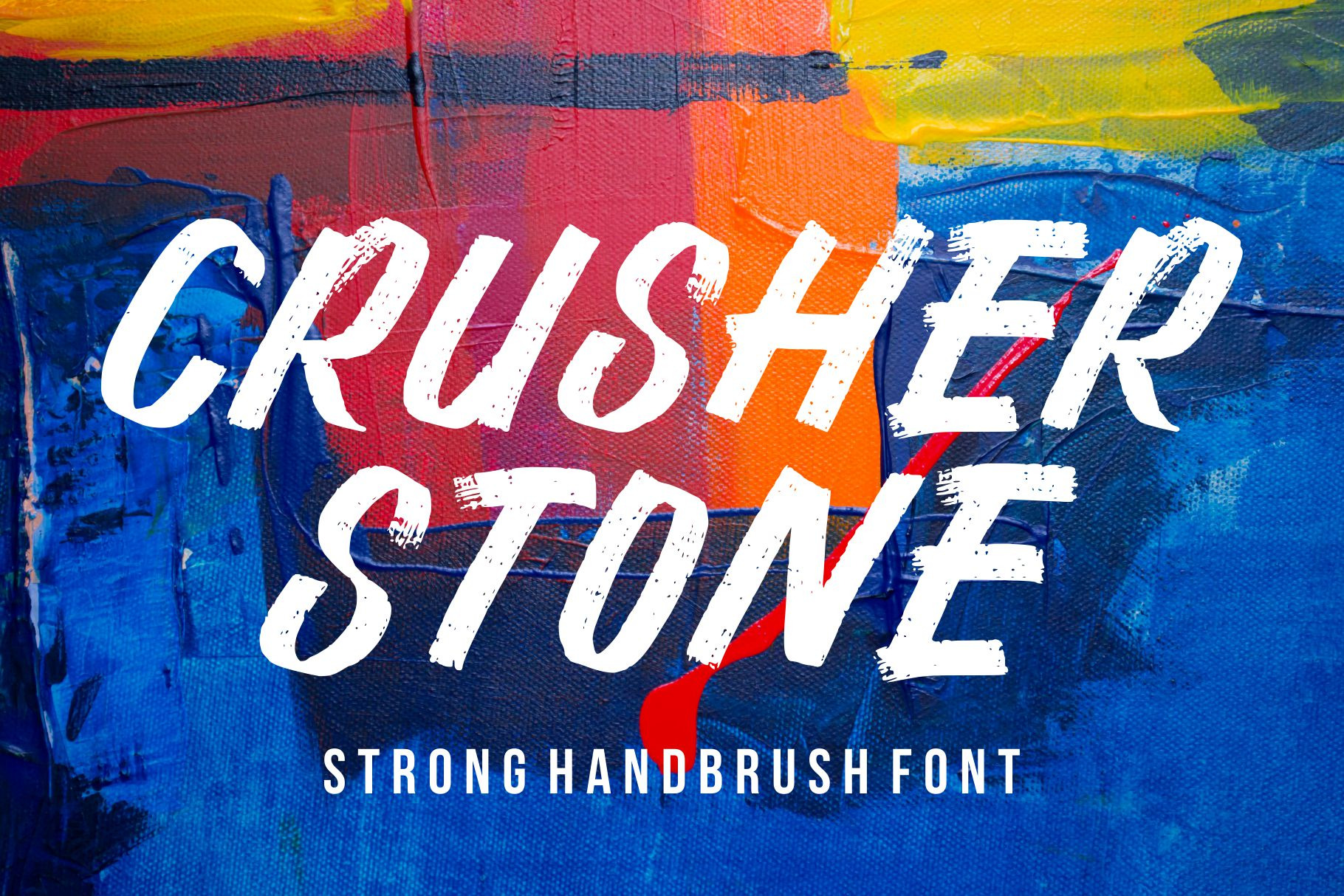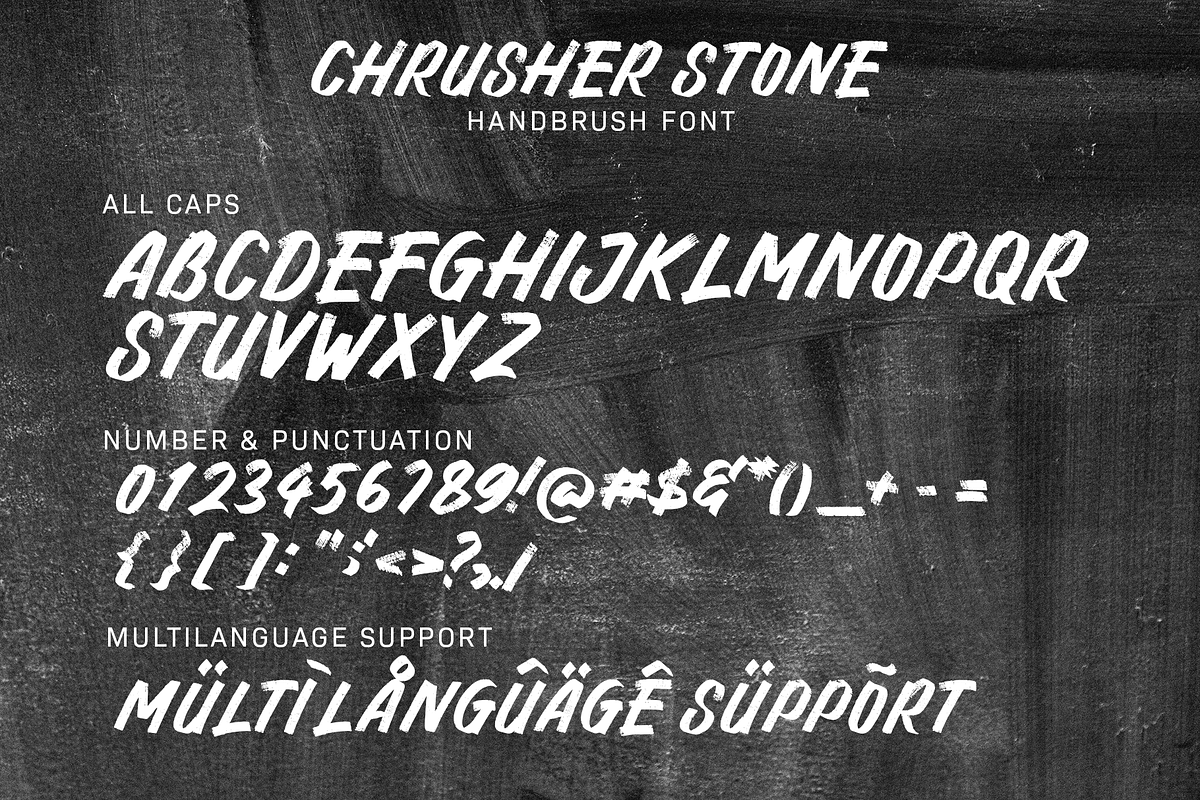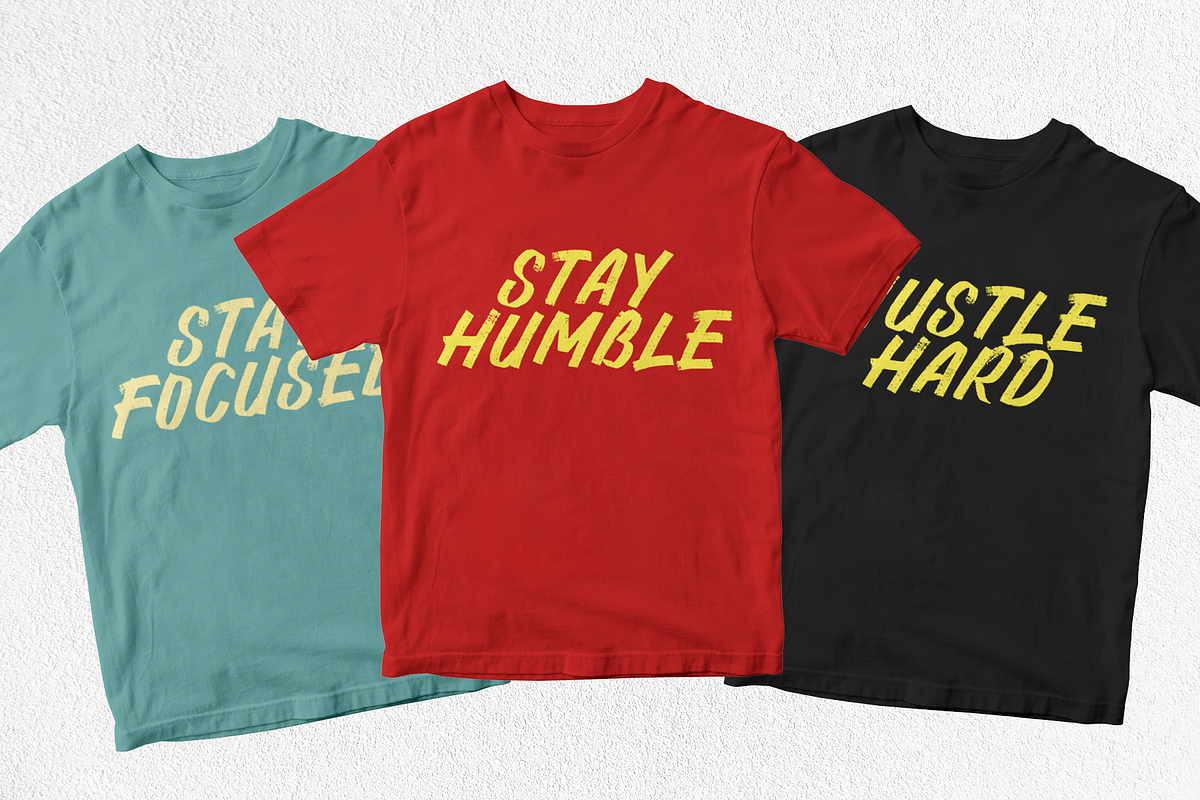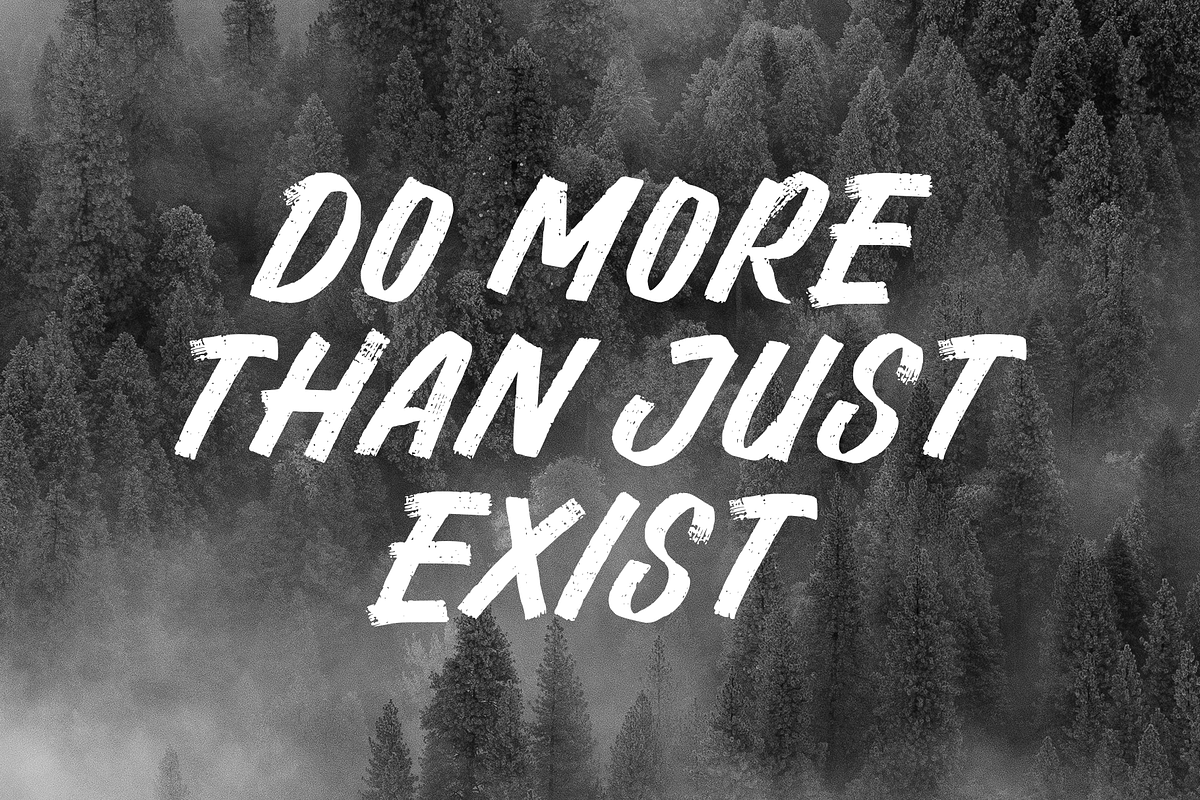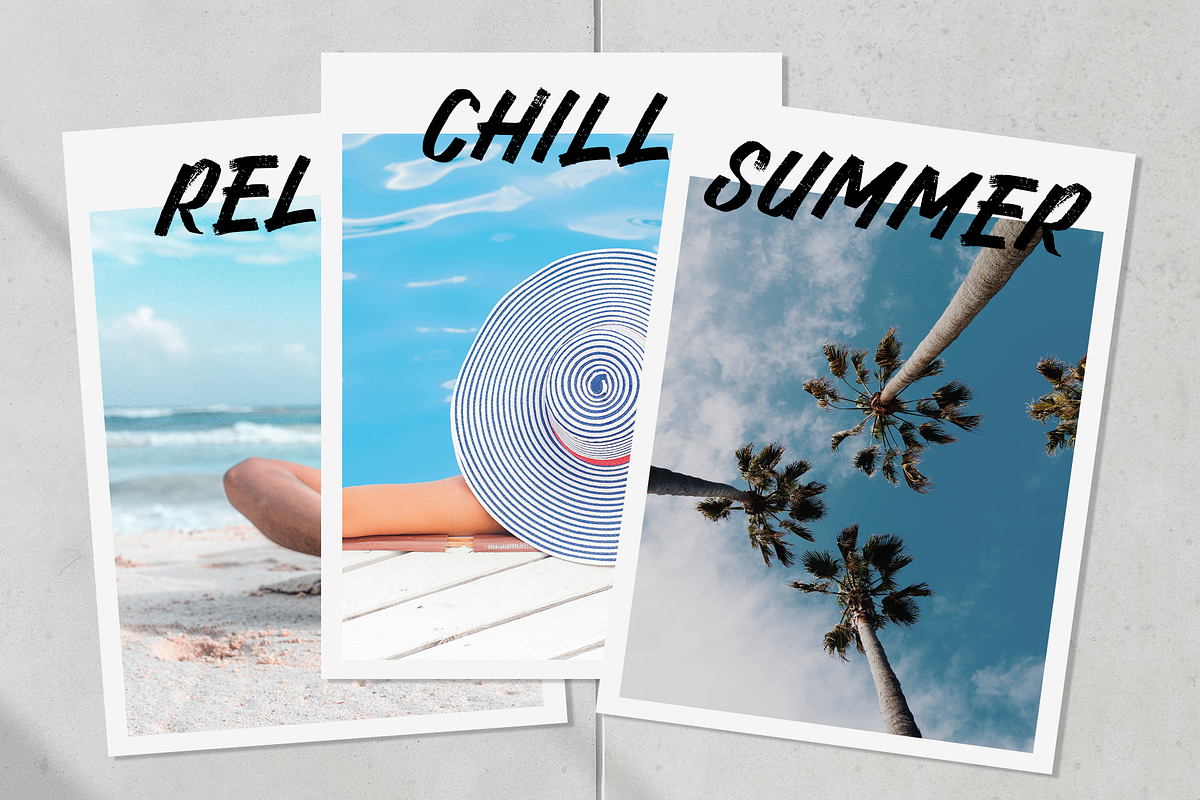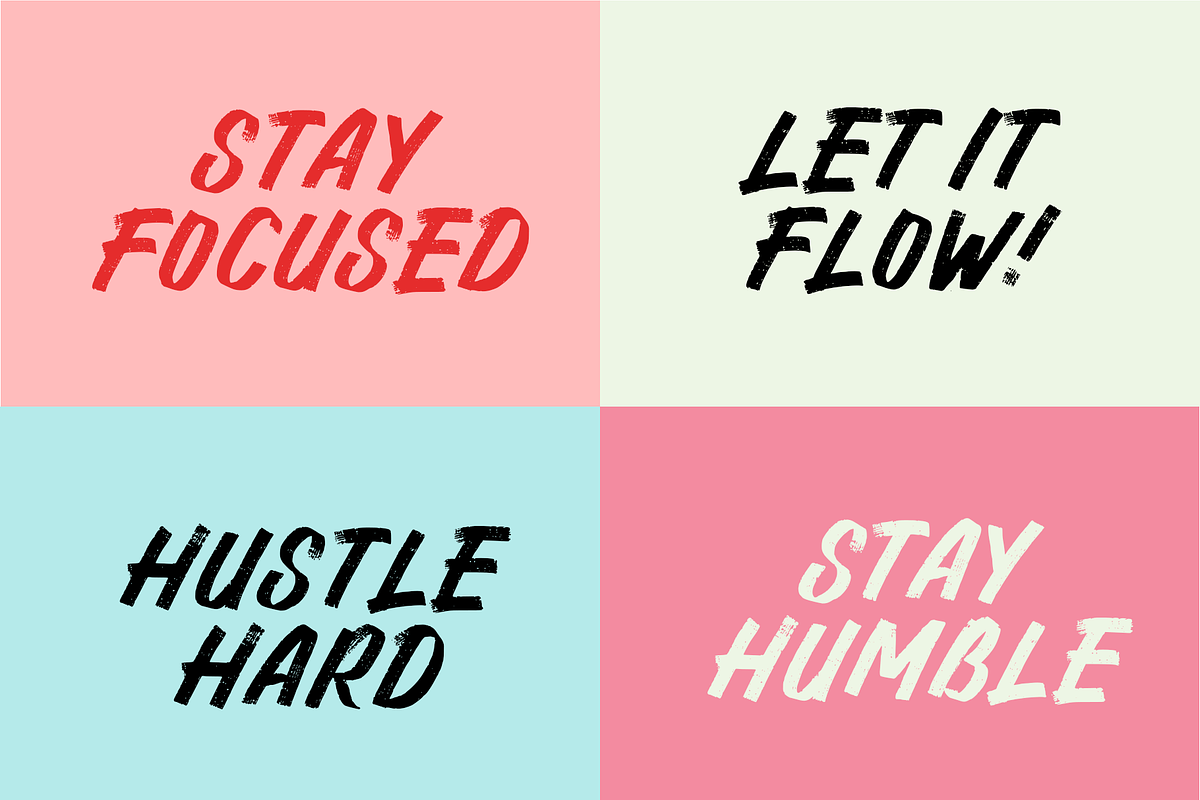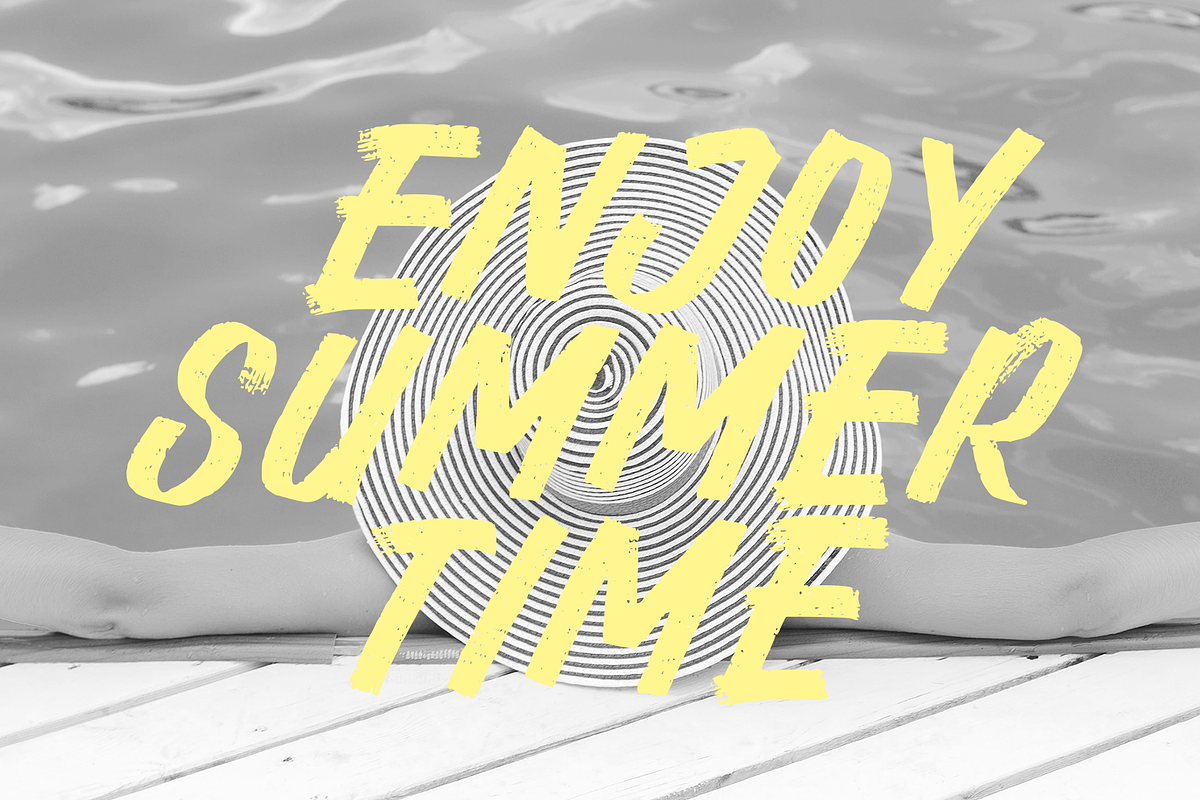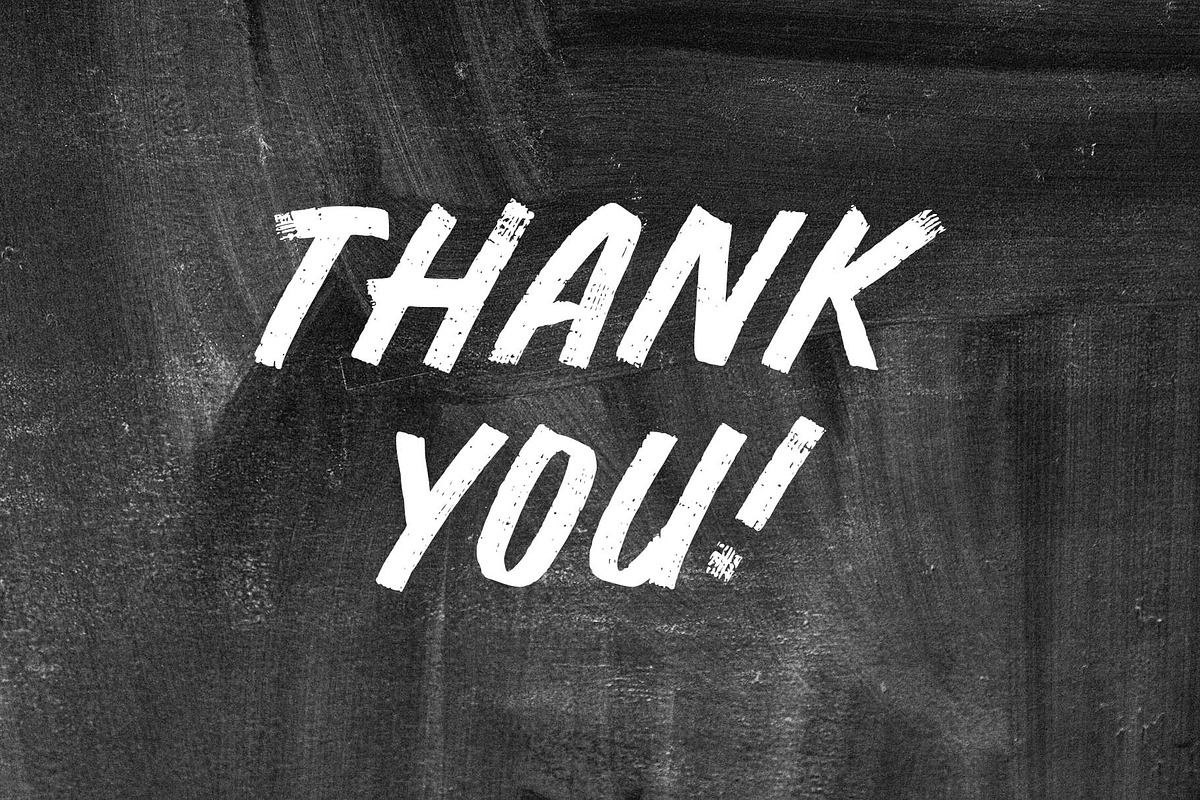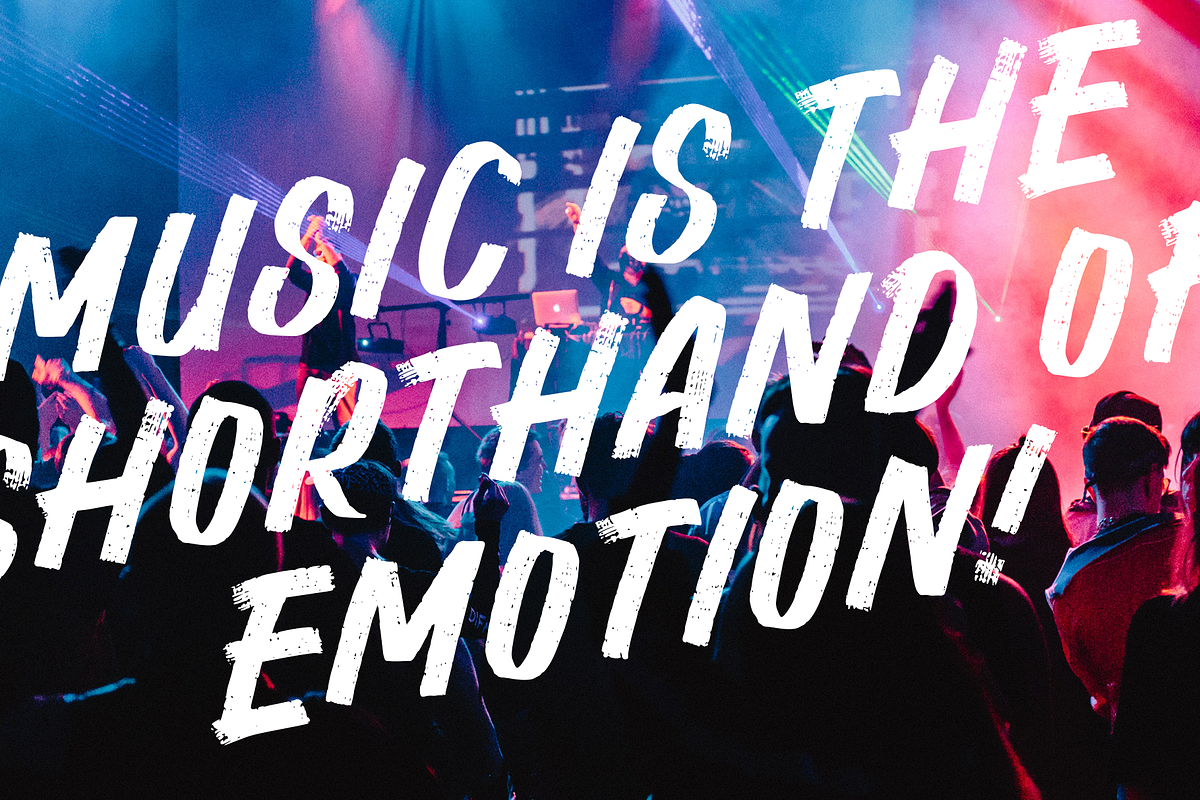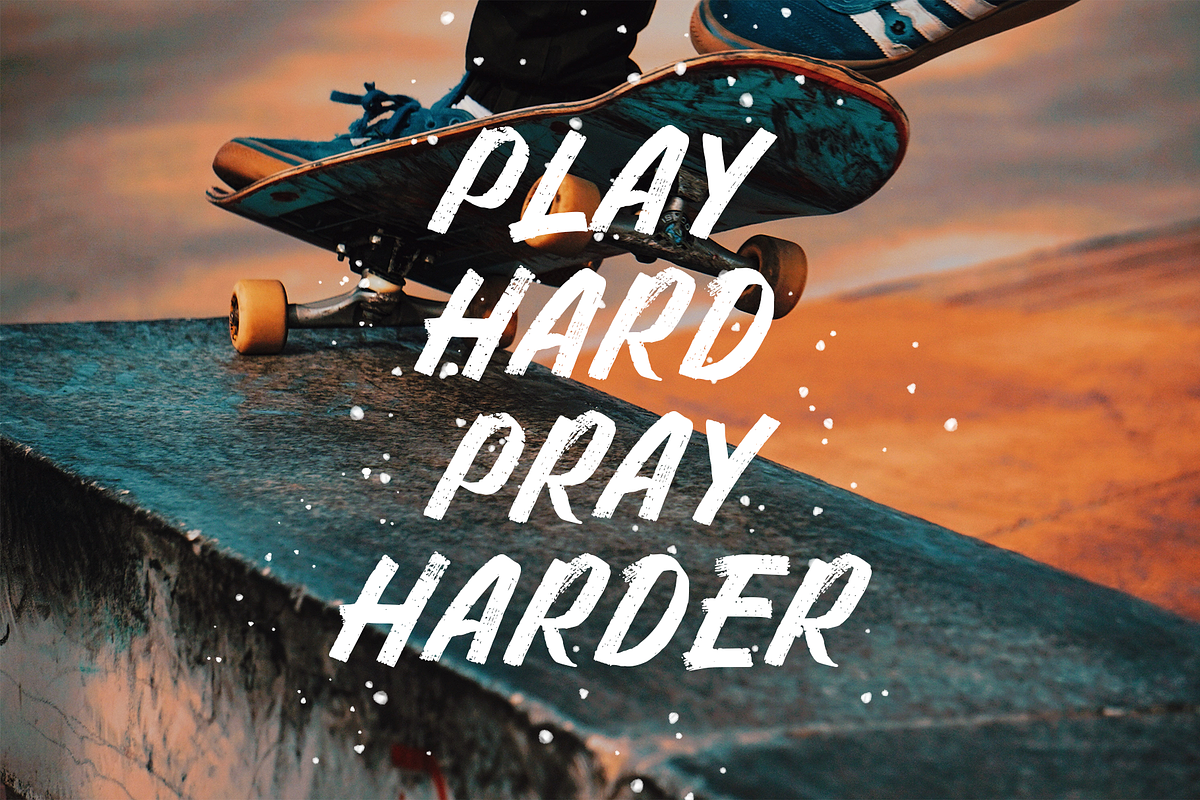
CRUSHER STONE | Brush Font
CRUSHER STONE is a hand brush font with scratch bold natural textures.
Fall in love with its incredibly versatile style and use it to create gorgeous wedding invitations, posters, art, eye-catching social media posts, branding design, packaging, mockup, and more!